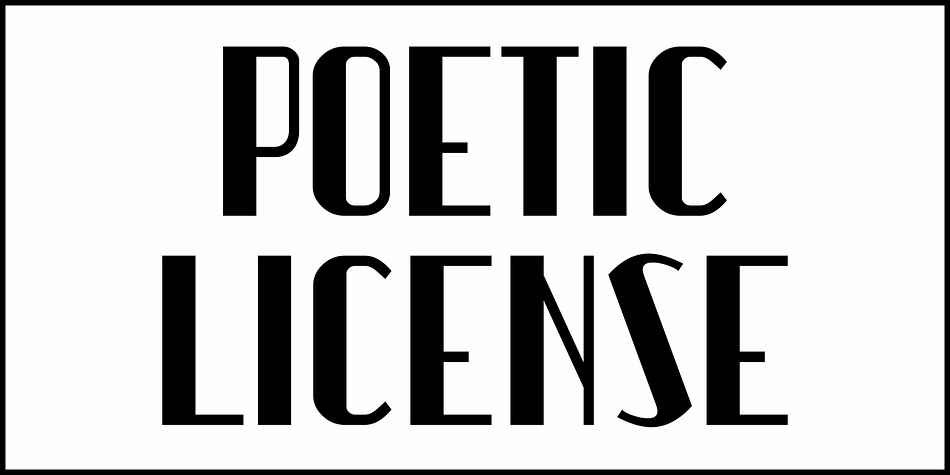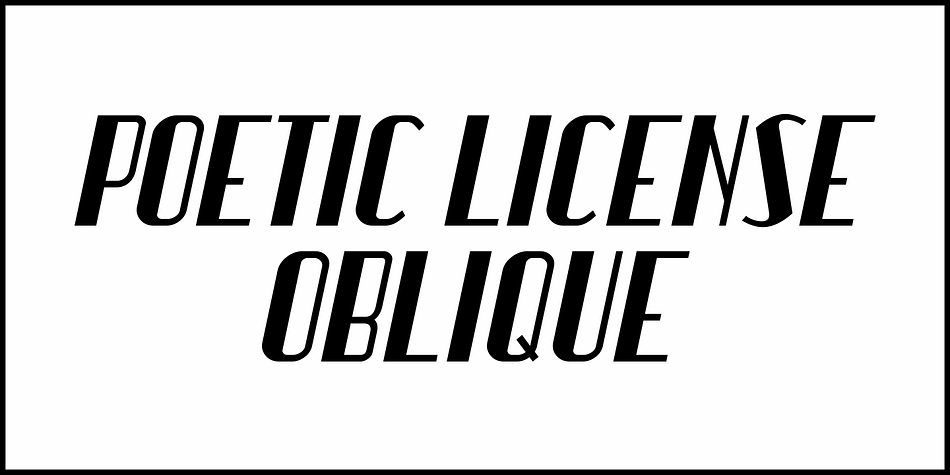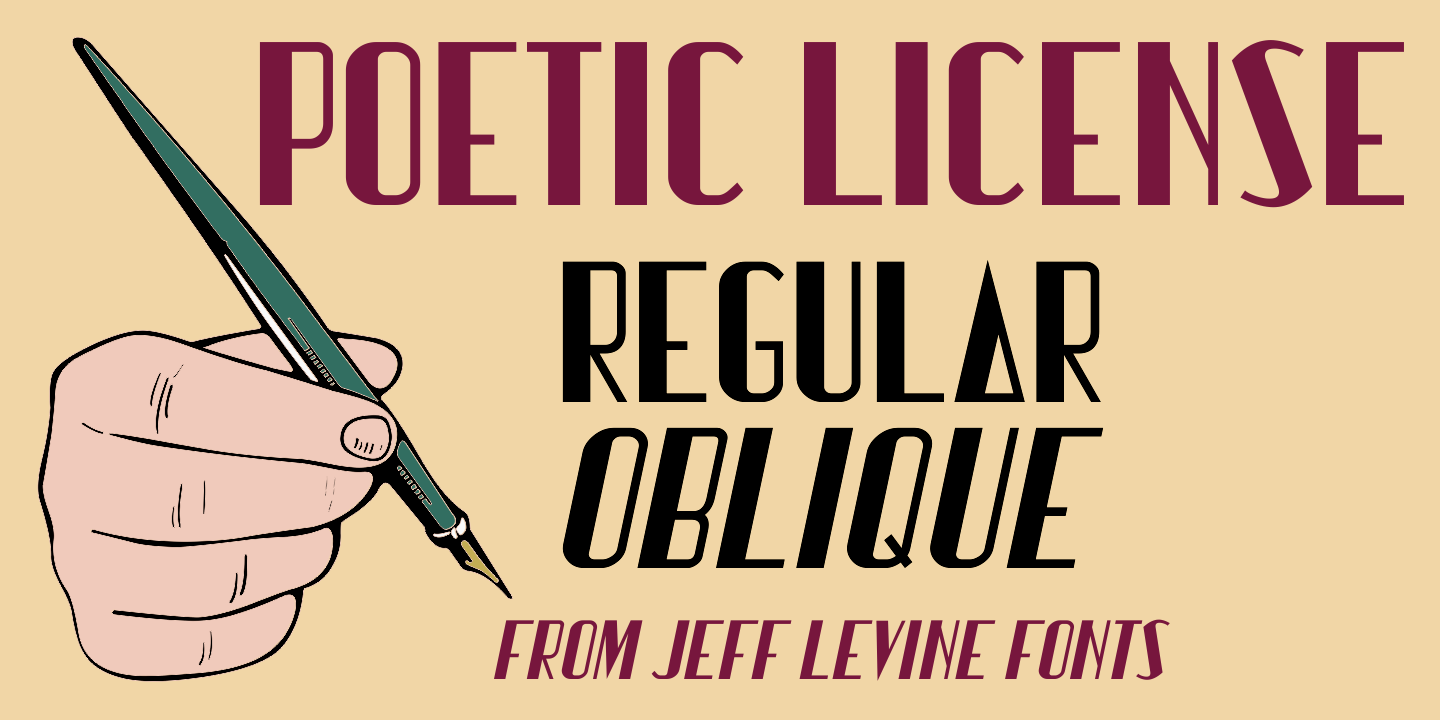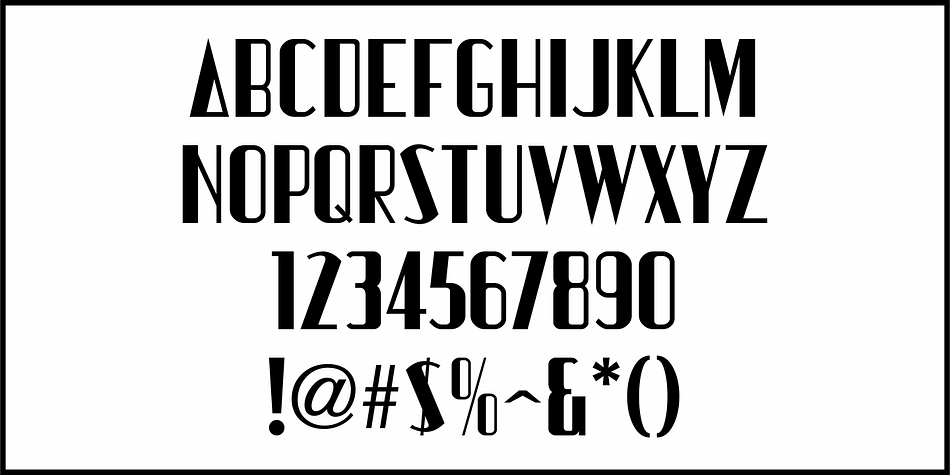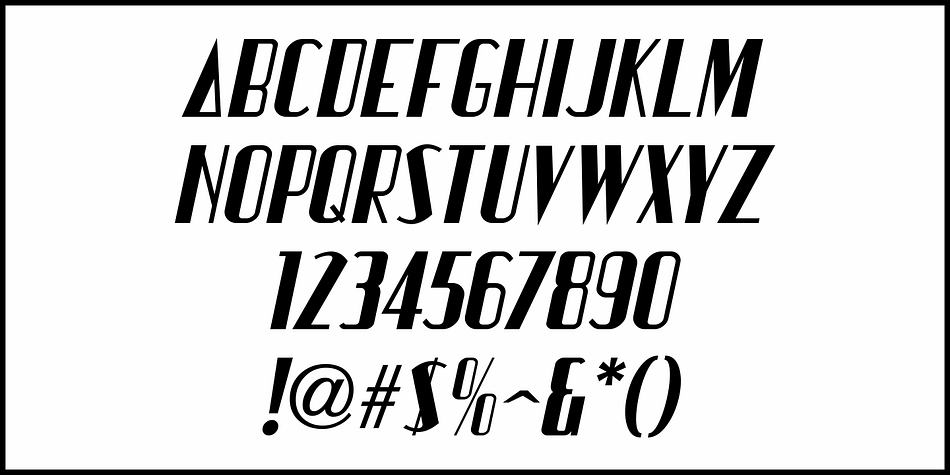
POETIC LICENSE JNL
Designed by Jeff Levine, Poetic License JNL is a display sans font family. This typeface has two styles and was published by Jeff Levine Fonts.
The book cover for Argentinian poet Carlos la Púa’s “La Crencha Engrasada” [“The Greased Crencha”] had its title hand lettered in an Art Deco thick-and-thin stle with a bit of an eccentric flare.
This is now available as Poetic License JNL in both regular and oblique versions
The word ‘Crencha’ means parting in Spanish.